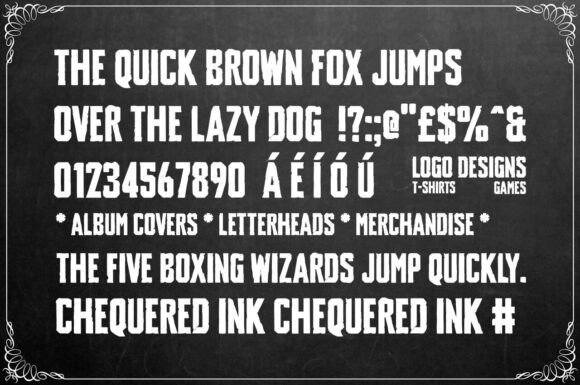
Destruction Manual Font: Elevate Your Brand with a Unique Hand-Crafted Feel
In the world of design, fonts play a crucial role in conveying the message and aesthetic of a brand. With numerous font options available, it can be challenging to find the perfect one that sets your brand apart. However, if you’re looking for a font that can give your brand an extra wow factor, look no further than the Destruction Manual Font. In this article, we’ll explore the features and benefits of this font and how it can elevate your brand’s visual identity.
What is Destruction Manual Font?
Destruction Manual Font is a unique and versatile font designed to give your brand a hand-crafted feel. Its distinctive style is perfect for designers looking to add a touch of personality to their work. Whether you’re designing a logo, website, album cover, video game, or T-shirt, this font is sure to make your product stand out.
The font’s design is inspired by the imperfections and irregularities of hand-drawn letters. It features a mix of uppercase and lowercase letters, numbers, and special characters, making it a comprehensive font for various design applications. The font’s texture and roughness give it a worn, vintage look that’s perfect for brands looking to convey a sense of nostalgia or authenticity.
Key Features of Destruction Manual Font
- Unique Hand-Crafted Feel: The font’s design is inspired by hand-drawn letters, giving it a distinctive and authentic look.
- Versatile: Suitable for various design applications, including logos, websites, album covers, video games, and T-shirts.
- Comprehensive Character Set: Includes uppercase and lowercase letters, numbers, and special characters.
- Texture and Roughness: The font’s texture and roughness give it a worn, vintage look.
Benefits of Using Destruction Manual Font
Using Destruction Manual Font can bring several benefits to your brand. Here are a few:
- Stand Out from the Crowd: The font’s unique design ensures that your brand will stand out from the competition.
- Emotional Connection: The font’s hand-crafted feel can help create an emotional connection with your audience.
- Flexibility: The font’s versatility makes it suitable for various design applications.
- Time-Saving: The font’s comprehensive character set saves you time and effort in designing custom letters.
Design Applications of Destruction Manual Font
Destruction Manual Font is suitable for various design applications. Here are a few examples:
- Logo Design: The font’s unique design makes it perfect for creating memorable logos.
- Website Design: Use the font to add a touch of personality to your website’s typography.
- Album Cover Design: The font’s vintage look is perfect for music albums and artist branding.
- Video Game Design: Add a touch of realism and authenticity to your video game’s typography.
- T-Shirt Design: The font’s bold and distressed look makes it perfect for T-shirt designs.
Tips for Using Destruction Manual Font
Here are a few tips for using Destruction Manual Font effectively:
- Experiment with Font Sizes: The font’s texture and roughness can be more pronounced at larger font sizes.
- Pair with Other Fonts: Pair the font with other fonts to create a unique and harmonious typography.
- Adjust the Tracking: Adjust the tracking to create a more cohesive and balanced look.
In conclusion, Destruction Manual Font is a unique and versatile font that can give your brand an extra wow factor. Its hand-crafted feel and distinctive style make it perfect for designers looking to add a touch of personality to their work. With its comprehensive character set and flexibility, this font is suitable for various design applications. By using Destruction Manual Font, you can create a memorable and emotional connection with your audience.